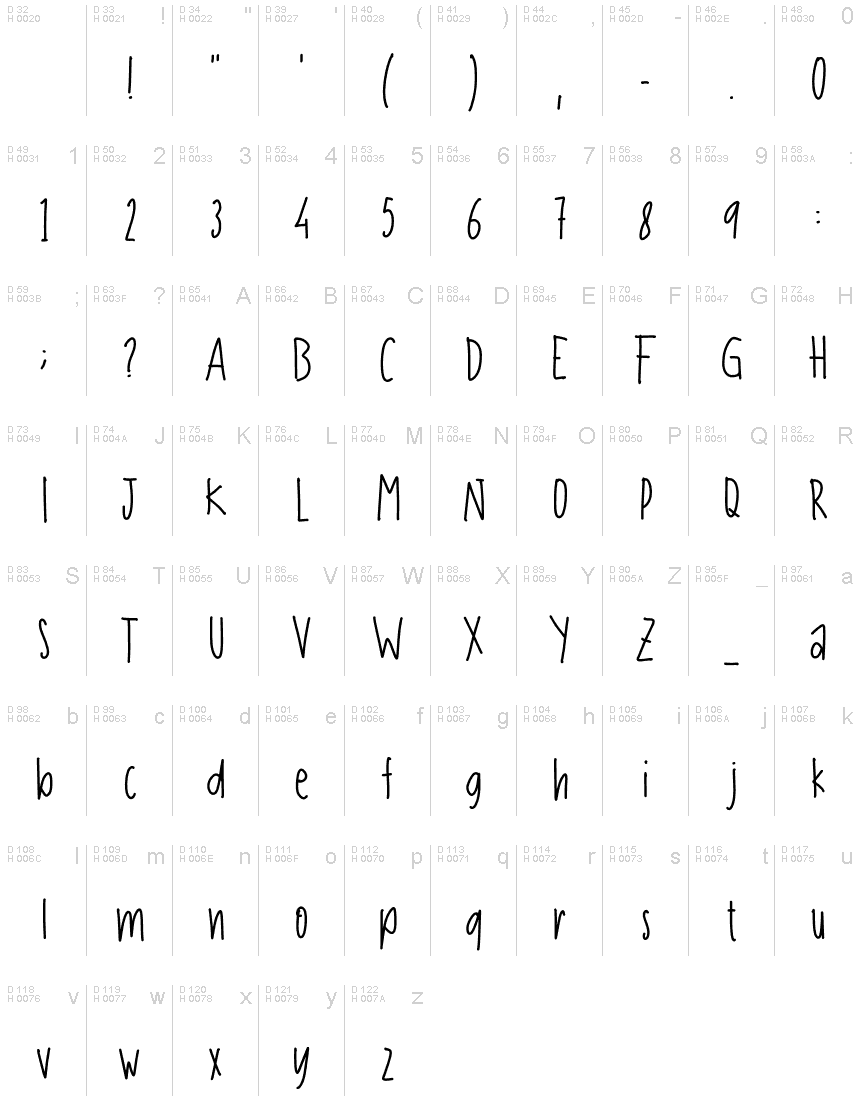
Jumpheart Regular
Jumpheart, a captivating handwritten font by Letterafa Studio, exudes an enchanting lightness that adds a touch of whimsy to any project. With its extra-condensed width, this font is perfect for designs that require a delicate and refined touch. Ideal for wedding invitations, elegant logos, and graceful packaging designs, Jumpheart effortlessly enhances the aesthetic appeal of any creative endeavor. Its charmingly handwritten style brings warmth and personality to digital or print media alike. Elevate your projects with the distinctive charm of Jumpheart and watch your designs come alive with elegance and sophistication.